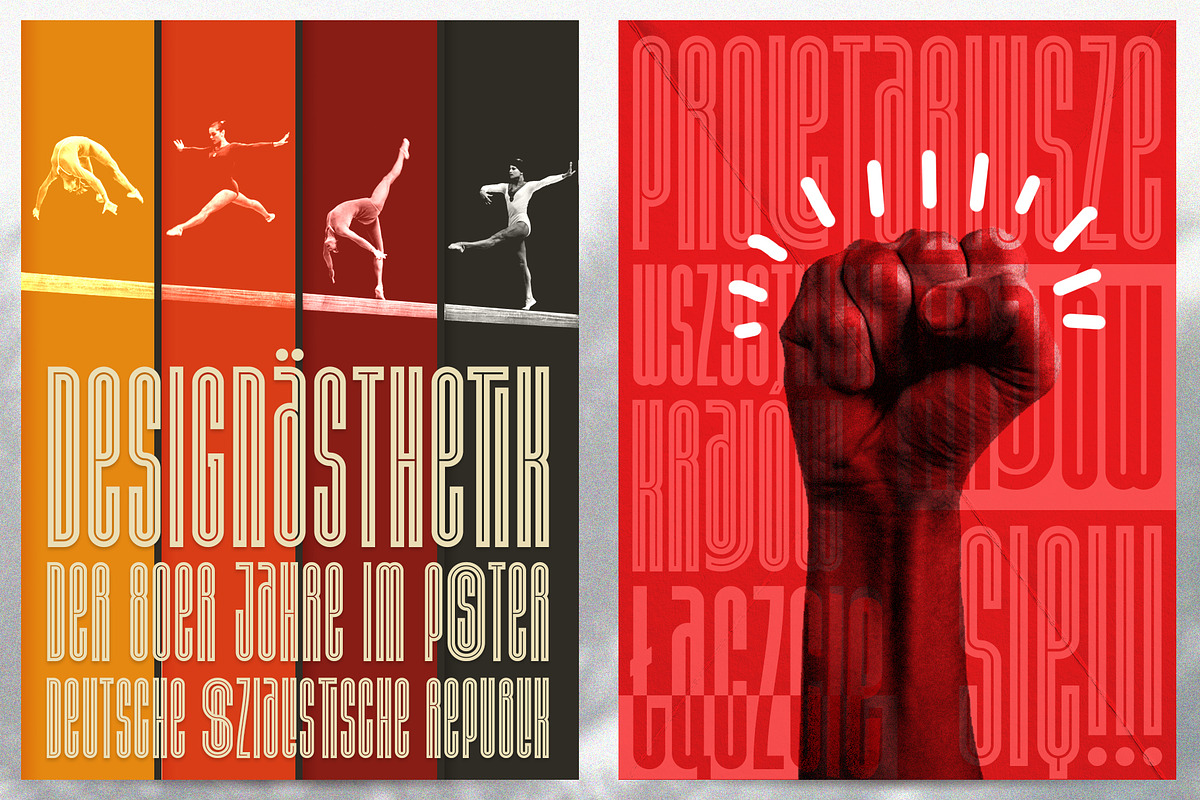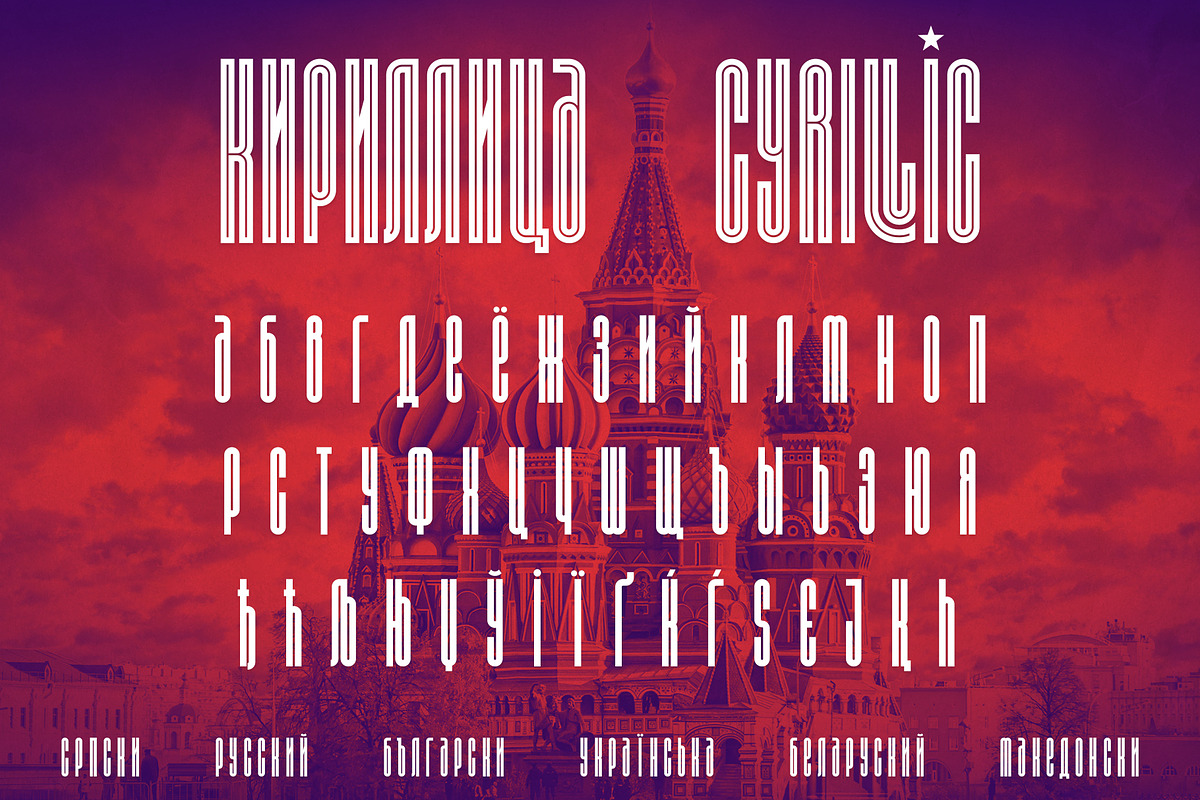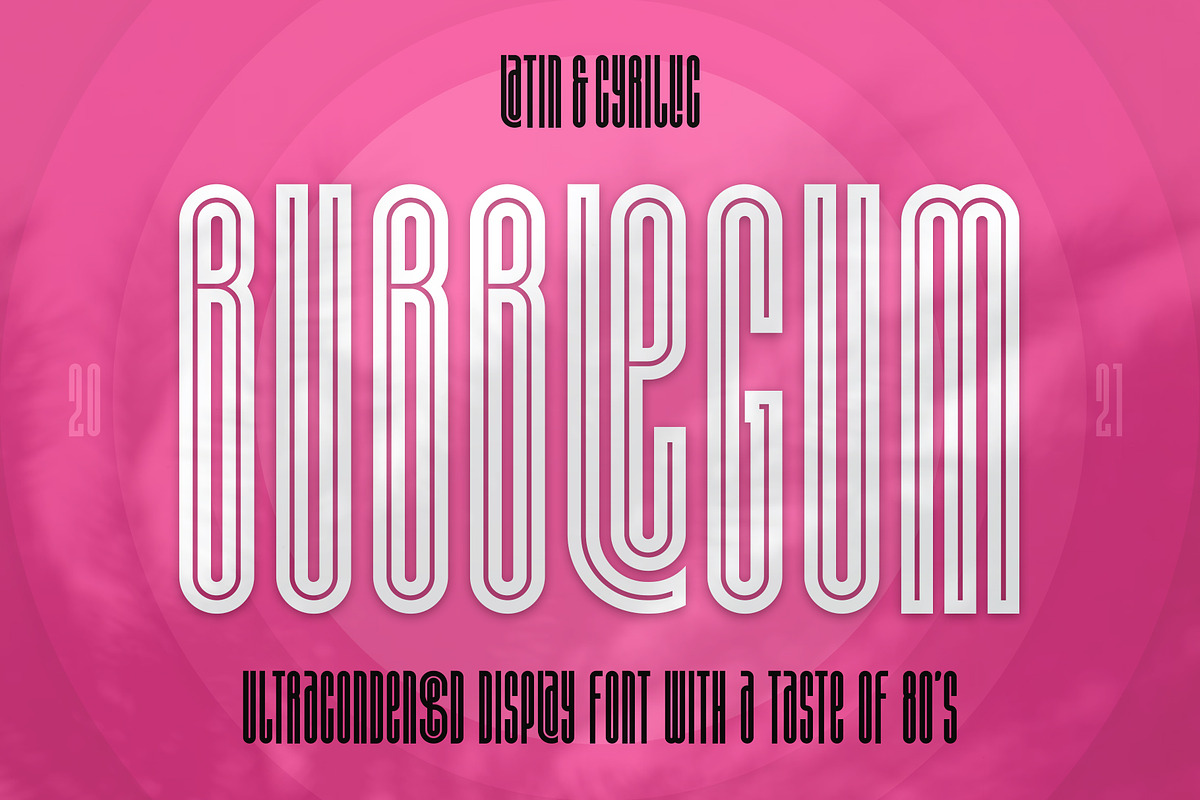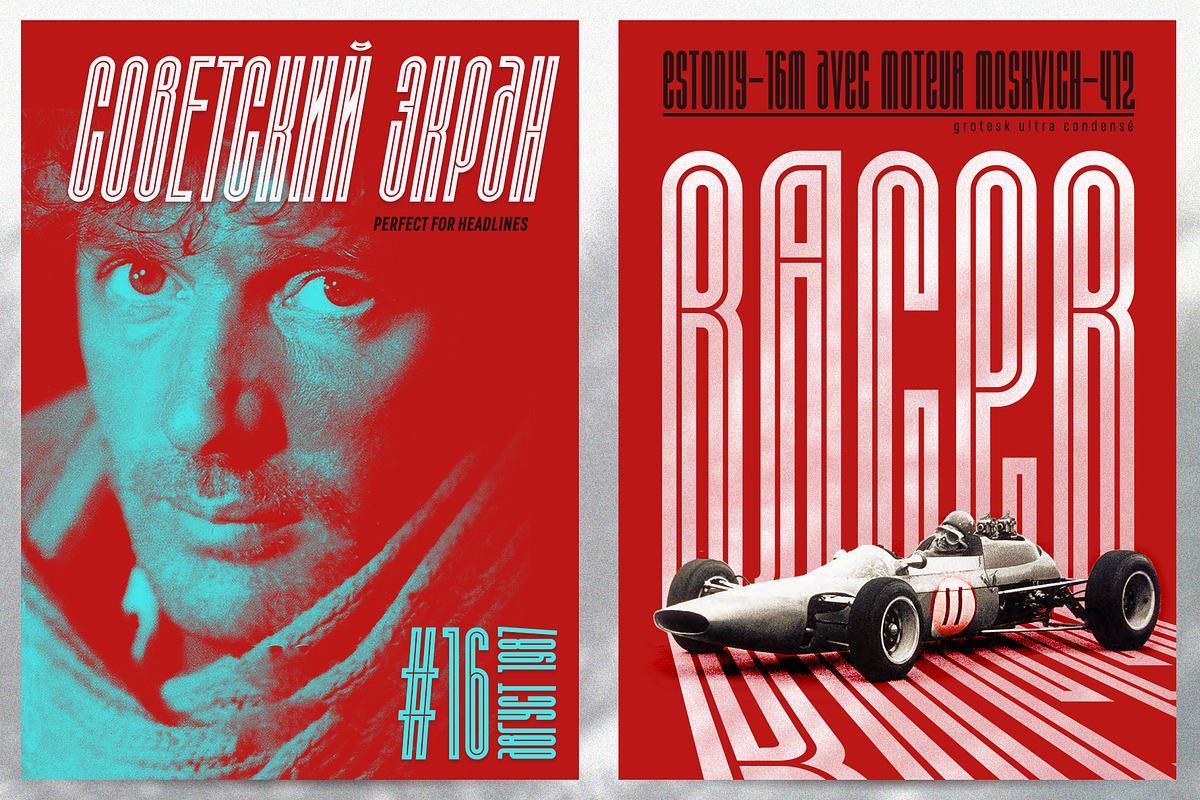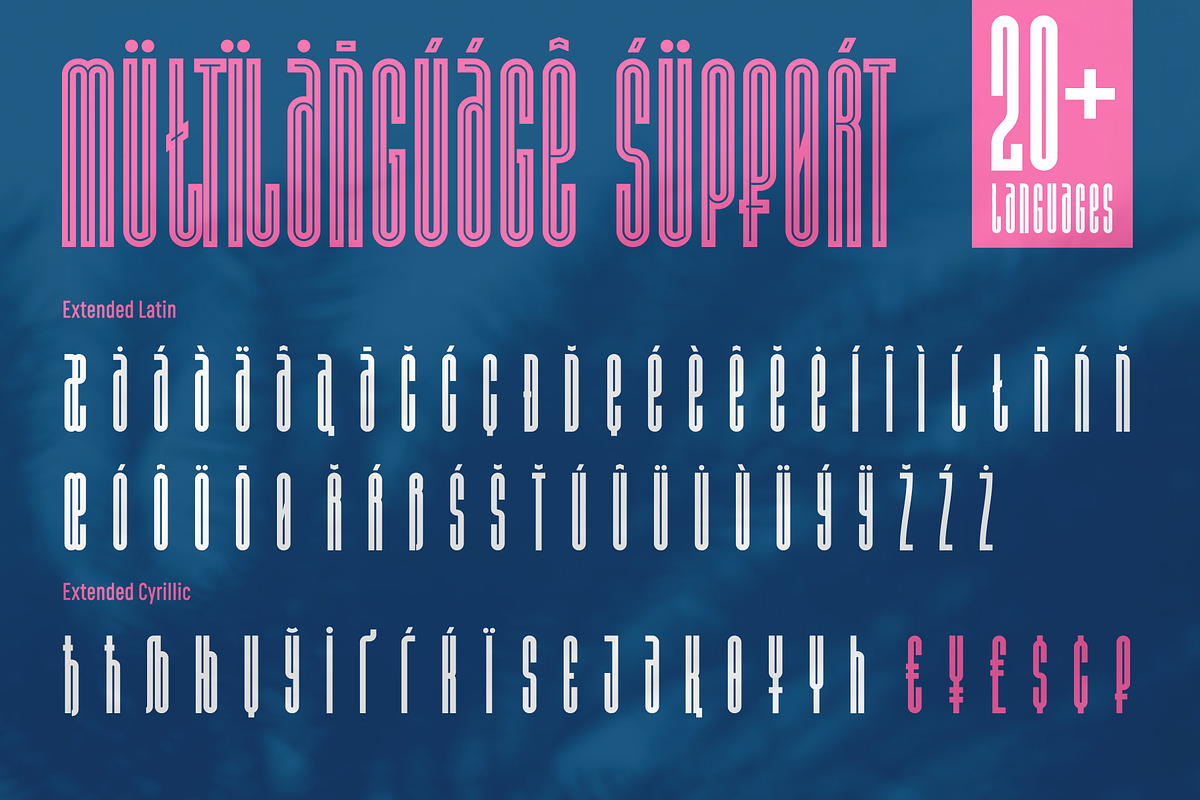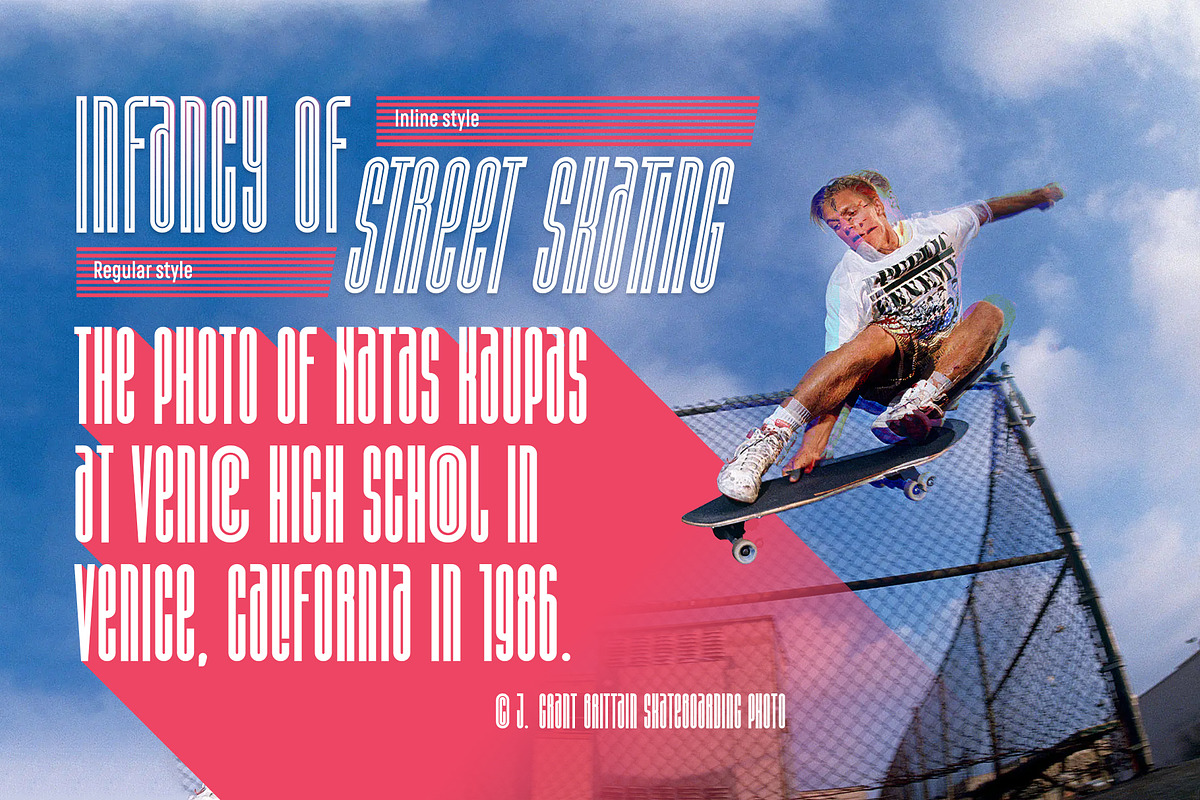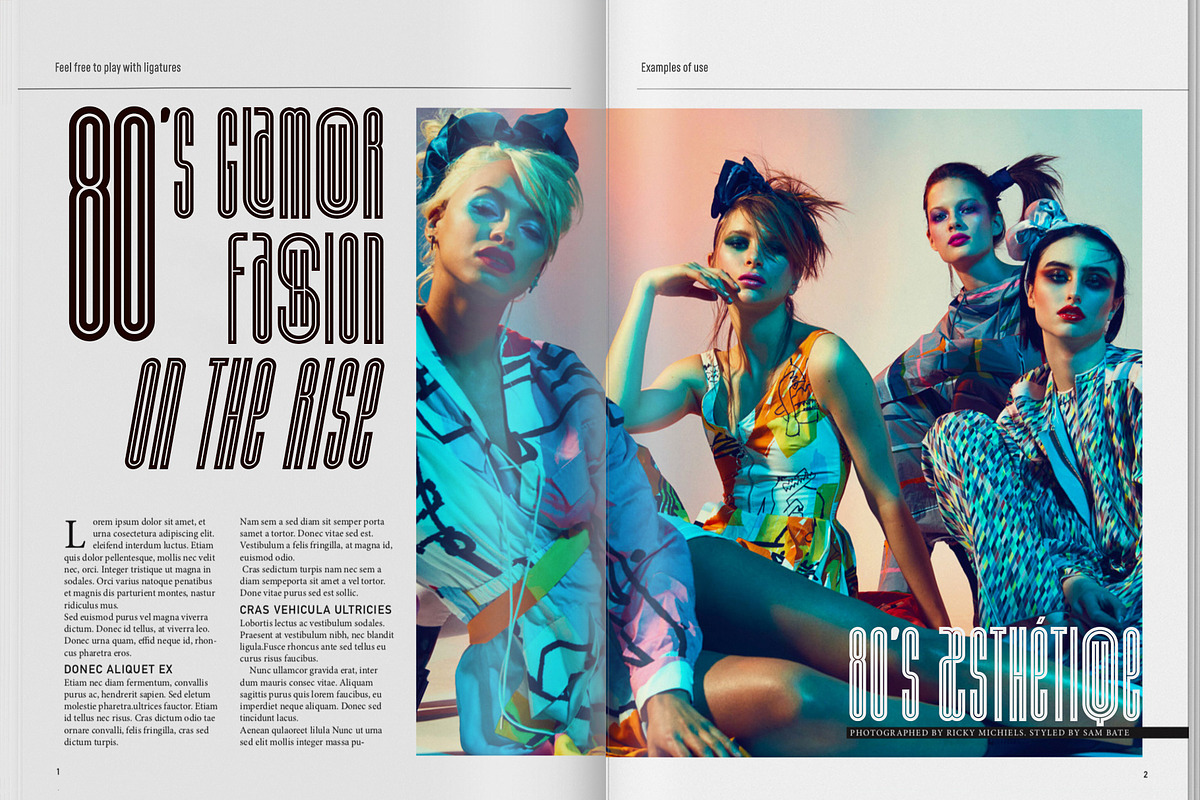
ST-Bubblegum ultracondensed font
ST-BUBBLEGUM is a retro futuristic modern editorial font with a taste of 80's, inspirated by sport and cinema posters. The font includes a tonnes of ligatures (on demand mode) for making your design more interesting. It's good for headlines, large-format print, branding, posters, fashion designs and apparel design.
Language Support:
Latin: English, French, German, Dutch, Italian, Spanish, Danish, Norwegian, Portuguese, Croatian, Swedish, Hungarian, Estonian and others.
Cyrillic: Russian, Belorussian, Ukrainian, Serbian, Bulgarian, Macedonian.
Numerals, punctuation and basic symbols included.